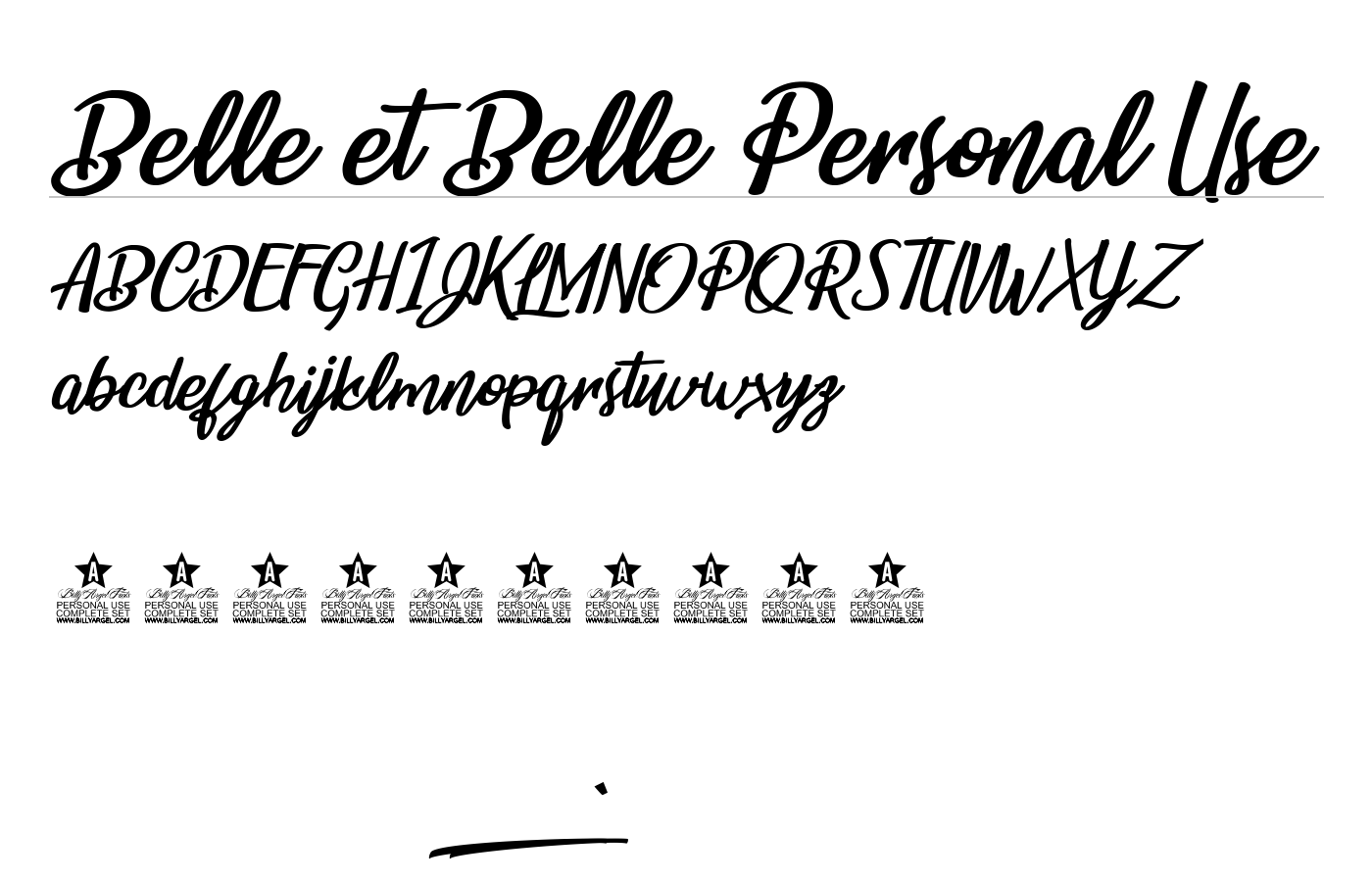
Belle et Belle Personal Use is an elegant script font with smooth, flowing strokes that create a charming and refined look. Its slightly bold weight and moderate contrast give it a confident yet graceful feel, making it ideal for personal branding, invitations, and stylish headlines. This font's delicate letterforms and natural cursive flow bring a touch of warmth and sophistication to any creative project.
Belle et Belle Personal Use Font
About Belle et Belle Personal Use Font
| Font family | Belle et Belle Personal Use Font |